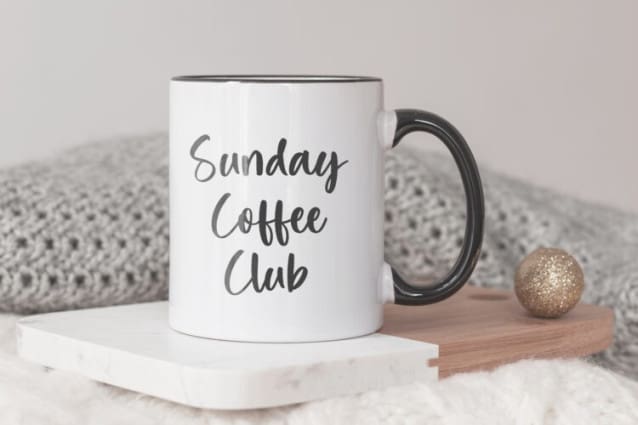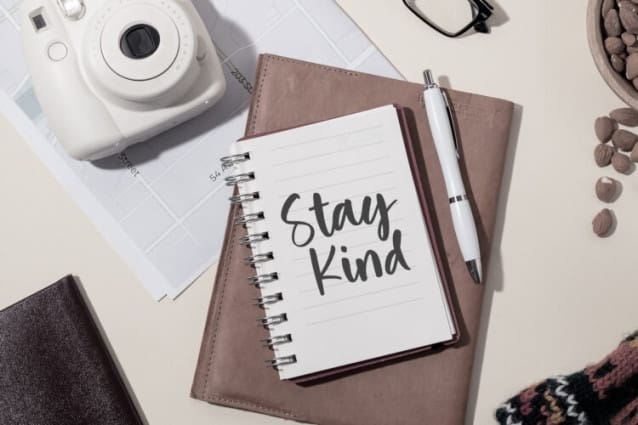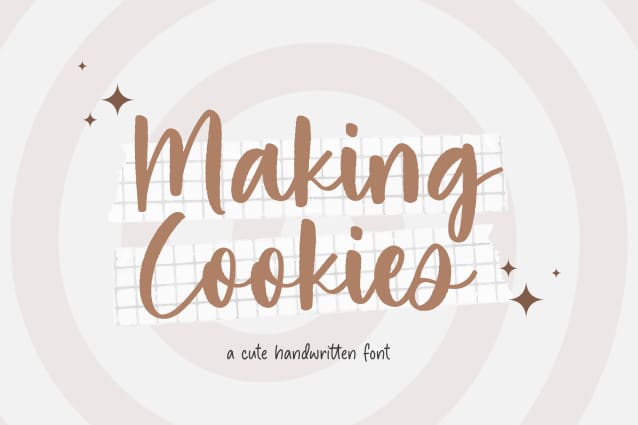
Making Cookies Font
Making Cookies Font is a Cute Handwritten font that is modern and fresh, and will bring a warm and inviting feel to your business. Take advantage of the fonts and experience the magic for yourself.
Making Cookies font is perfect for product packaging, branding project, megazine, social media, wedding, or just used to express words above the background.